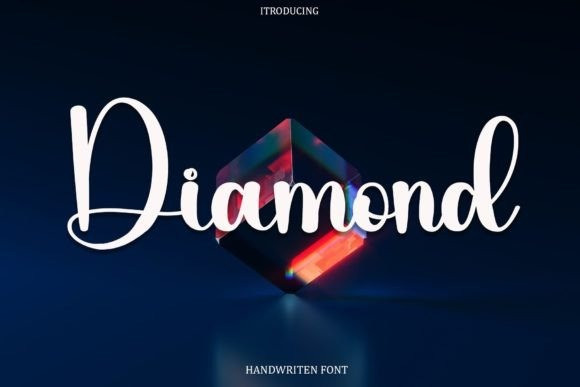
Diamond Script Font
Diamond Script Font is a delicate and well-rounded handwritten font, perfect for crafty projects that need authentic typography! Use it for wedding in